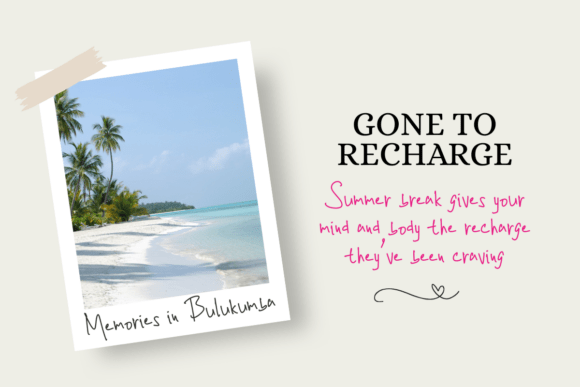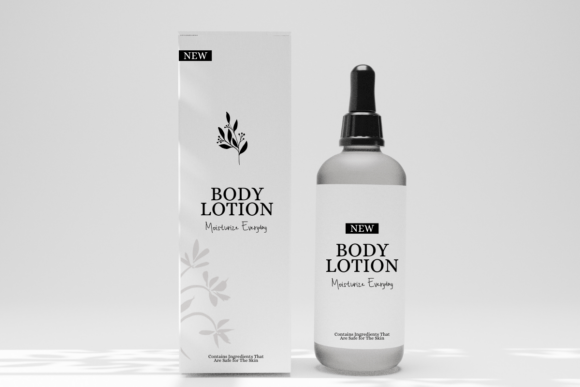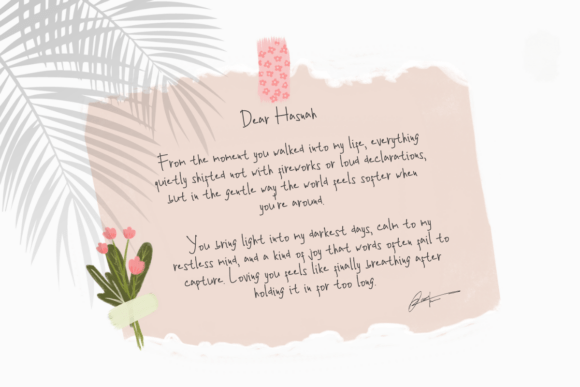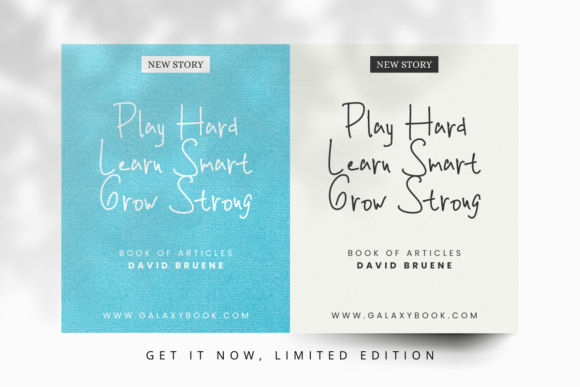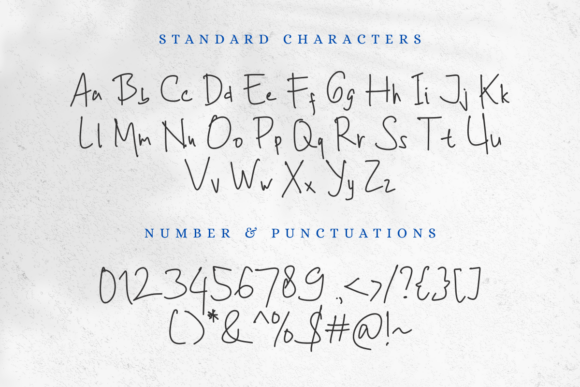
Unleash Your Creativity with BORING MARKER: The Bold and Expressive Handmade Marker Font
Are you tired of using the same old fonts in your designs? Do you want to add a touch of personality and authenticity to your posters, social media graphics, or streetwear branding? Look no further than BORING MARKER, a bold and expressive handmade marker font that’s anything but boring.
The Raw Energy of Hand-Drawn Lettering
BORING MARKER is a font that captures the raw energy of real hand-drawn lettering. With its rough edges and casual strokes, this font brings a sense of attitude and authenticity to your designs. It’s perfect for designers and crafters who want to add a personal touch to their work and make it stand out from the crowd.
BORING MARKER is a versatile font that can be used for a wide range of design projects. Whether you’re creating posters, social media graphics, streetwear branding, or anything else that needs a punch of personality, this font is sure to deliver. Its bold and expressive style makes it perfect for headlines, titles, and short phrases, while its casual and hand-drawn feel makes it great for adding a personal touch to your designs.
What Sets BORING MARKER Apart
So, what sets BORING MARKER apart from other fonts? For starters, its handmade and hand-drawn style gives it a unique and authentic feel that’s hard to replicate with digital fonts. Additionally, the font includes a few custom ligatures to keep your lettering looking dynamic and natural. This means that you can create complex and interesting lettering combinations that add an extra layer of personality to your designs.
Why You Should Choose BORING MARKER
There are many reasons why you should choose BORING MARKER for your next design project. Here are just a few:
• Unique and Authentic Style: BORING MARKER has a unique and authentic style that’s sure to make your designs stand out.
• Versatile: This font can be used for a wide range of design projects, from posters and social media graphics to streetwear branding and more.
• Custom Ligatures: The font includes a few custom ligatures to keep your lettering looking dynamic and natural.
How to Use BORING MARKER in Your Designs
Using BORING MARKER in your designs is easy. Here are a few tips to get you started:
• Use it for Headlines and Titles: BORING MARKER is perfect for headlines and titles, where its bold and expressive style can really shine.
• Add a Personal Touch: Use BORING MARKER to add a personal touch to your designs, whether it’s a social media graphic or a streetwear branding campaign.
• Experiment with Ligatures: Don’t be afraid to experiment with the custom ligatures in BORING MARKER to create unique and interesting lettering combinations.
In conclusion, BORING MARKER is a bold and expressive handmade marker font that’s perfect for designers and crafters who want to add a touch of personality and authenticity to their work. With its rough edges and casual strokes, this font captures the raw energy of real hand-drawn lettering and is sure to make your designs stand out. So why settle for boring fonts when you can use BORING MARKER to add a punch of personality to your designs?
Whether you’re a seasoned designer or just starting out, BORING MARKER is a great addition to your font library. So go ahead, give it a try, and see how it can help take your designs to the next level.